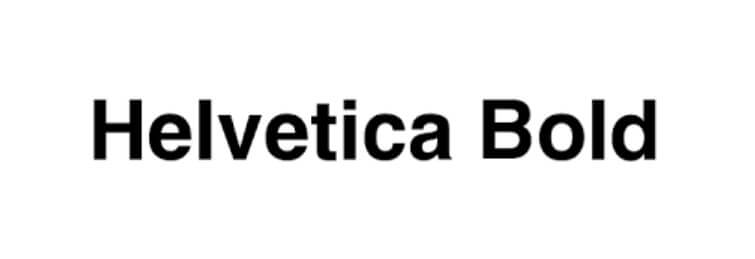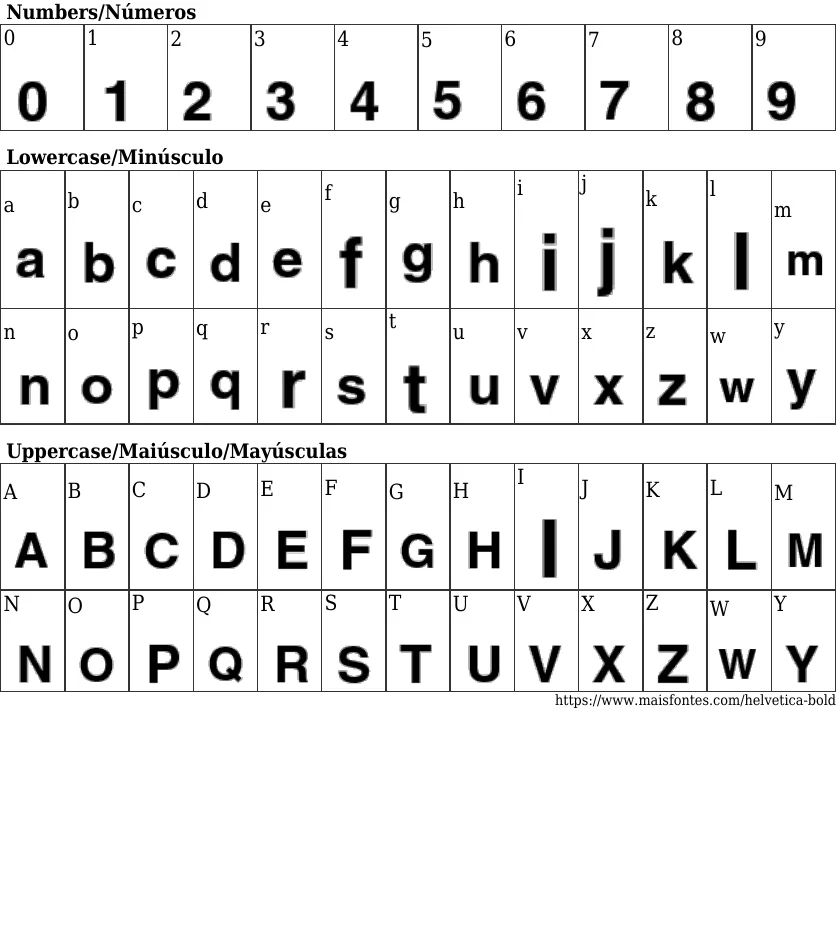
Helvetica was designed by alfred hoffmann with max miedinger in 1957 for the haas typefoundry of basel, switzerland.
The “a” of the helv You can use the helvetica black semi bold to create interesting designs, covers, shop and store name and logos. Helvetica neue font is a licensed font that is used inside android devices.
The font family is helvetica condensedbold. Helvetica was designed by matthew carter, max miedinger, edouard hoffmann and published by linotype. About the font helvetica condensed bold.
Simply type or copy the normal text into the blank text. Once you click the generate button you’ll have a list of fonts you need. Helvetica font belongs to the sans serif typeface family.
Helvetica was formerly called neue haas grotesk. Helvetica bold is free for personal use only. The helvetica font generator tool will be too helpful for you to convert usual and straightforward font style into your desired font.
It makes the context easy to understand and read even from a distance; Font meme is a fonts & typography resource. September 8, 2021 by eduard hoffmann.
That’s why it is used in various notable places. Please, talk with the author for commercial use or for any support. About the font helvetica bold.
Simply copy & paste helvetica fonts. He is known for creating helvetica typefaces that gave him acknowledgment worldwide. The texture appearance of this font is influenced by many designers and it is one of.
Simply type or copy the normal text into the blank text field. You can use the helvetica bold oblique to create interesting designs, covers, shop and store name and logos. You can use the helvetica bold to create interesting designs, covers, shop and store.
About the font helvetica black semi bold. Download free helveticaneue lt 57 cn, helvetica lt 77 bold condensed.ttf bold font for windows, free 49984 various fonts to dowwnload helvetica lt 57. Linotype design studio, max miedinger;
About the font helvetica bold oblique. Helvetica condensed is free for personal use only. To install this font follow the next advice:
Many graphic and typography designers are well aware of this font and utilizing this typeface in their various projects and proposals. Please, talk with the author for commercial use or for any support. Font generator copy and paste is a straightforward generator that you can use to make textual styles for instagram.
Helvetica contains 34 styles and family package options.